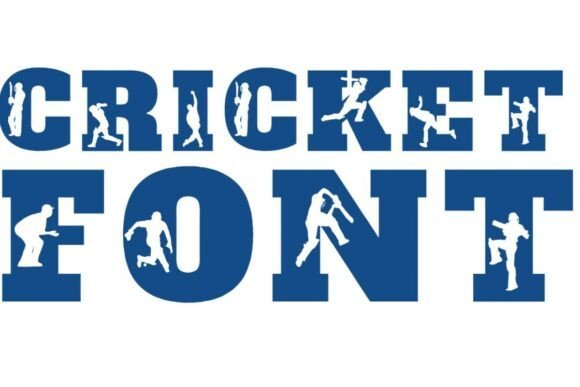
Step Up to the Crease with Cricket Font
Imagine you’re standing at the crease, bat in hand, ready to take on the challenge of a big match. The thrill of the game, the roar of the crowd, and the rush of adrenaline – it’s a feeling like no other. As a designer, you want to capture that energy and excitement in your projects, don’t you?
That’s where Cricket Font comes in – a bold and sporty alphabet font designed specifically for cricket-themed designs. With strong, clear lettering inspired by the spirit of the game, this font is perfect for match-day posters, sportswear, kids’ cricket parties, and custom merchandise. Whether you’re a sports lover, coach, or Cricut crafter, Cricket Font is a must-have in your design arsenal.
Cricket Font Key Features
- Size and Resolution: The font is designed to be highly legible at various sizes, from 8-point to 24-point, and is optimized for resolutions up to 300 DPI.
- Unique Characteristics: Cricket Font features a distinctive, modern design with a unique blend of geometric and organic elements, making it perfect for sports, action, and adventure-themed projects.
- Scalability: Cricket Font is highly scalable, meaning it looks great at both small and large sizes, making it ideal for use in headlines, body text, and even logos.
Designer Review: Cricket Font
Overall, I was quite excited to dive into the Cricket Font, but my experience was a mixed bag. Let’s start with the good stuff: ✨ The font’s playful and quirky nature is a great addition to any design project that needs a bit of whimsy. The character set is quite extensive, covering a wide range of languages, which is a definite plus. The font also handles bold and italic styles well, making it a great choice for headings and emphasis.
Now, let’s talk about some limitations: ⚠️ One major drawback is the font’s weight distribution. Some letters appear too wide or too thin, which can disrupt the overall balance of the text. Additionally, the font doesn’t have any optical sizing, which can lead to some awkward scaling issues at smaller font sizes. And, unfortunately, the font’s legibility suffers in certain font sizes, making it difficult to read in some cases.
Here are some specific issues I encountered:
- The ‘e’ and ‘a’ letters often get lost in the noise due to their thinness.
- The font’s lowercase ‘t’ can be tricky to read at smaller sizes.
- The font lacks a clear distinction between the different font weights, making it difficult to create a consistent design.
Overall, I’d say the Cricket Font is a solid choice for designers looking for a playful, handwritten feel. However, it’s not without its limitations, and careful consideration should be given to the font’s use in various design contexts.
Getting the Most Out of Cricket Font
To get the most out of Cricket Font, use it for bold headlines and titles, as its unique style is best suited for making a statement. Avoid using it for large blocks of text, as it can be difficult to read.
Cricket Font is commonly used in:
– Sports branding and marketing materials
– Fashion and lifestyle branding
– Music and entertainment branding
– Anywhere a unique and eye-catching font is desired